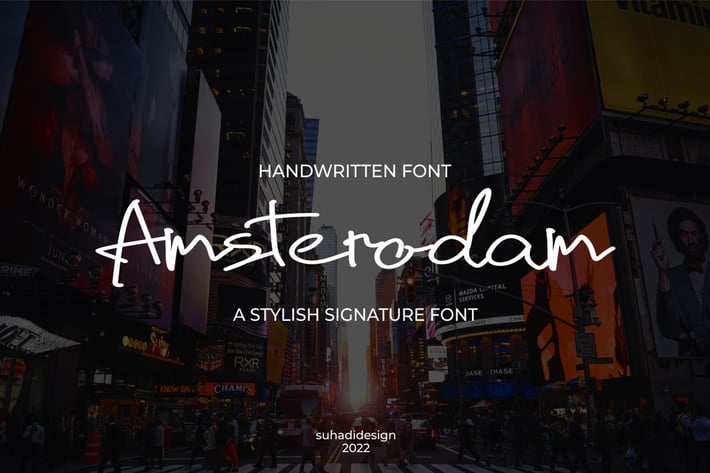
Amsterodam Handwritten Script Font
According to the market demand, the font is more inclined to the signature font, so I decided to create a signature font that is in your view. The Amsterodam font is a simple and very popular font, comes with a modern style hoping to be accepted by the market. We keep this font looking elegant, classy, easy to read, stylish, attractive and easy to use.
Amsterodam Font is a great choice for watermarks on photography, signature or signature logo designs, business brand names, quotes, album covers, beauty, business cards, packaging and many other design projects. From business cards to photo watermarks, The Amsterodam is here to take your work to the next level.
Feature:
• Uppercase
• Lowercase
• Numerical
• Punctuation